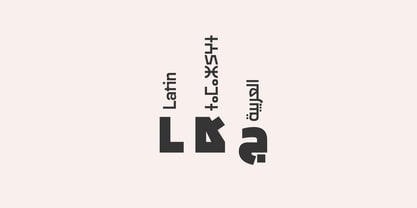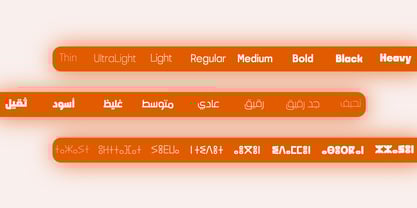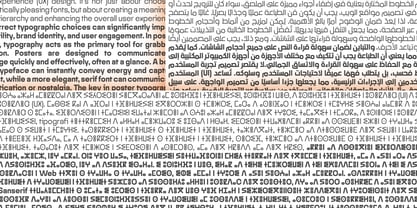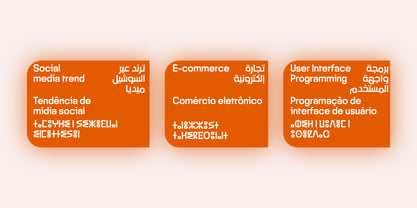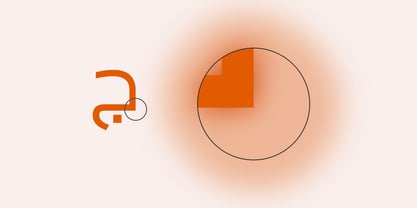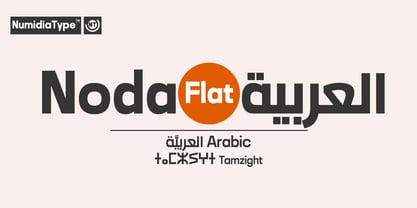
Noda Arabic Flat
by NumidiaType
The Noda Arabic Flat Font Family was designed by Yassine Abdi and published by NumidiaType. Noda Arabic Flat contains 8 styles and family package options. More about this family
Noda™ Arabic Flat is a versatile font family that brings a contemporary twist to Arabic typography. Crafted with precision, it features square and sharp curves, distinct angles, and a flat baseline, setting it apart from the traditional Arabic curves of its predecessor. This modern interpretation not only caters to Arabic script but also seamlessly supports Amazigh and Latin languages, making it a dynamic choice for diverse linguistic applications.